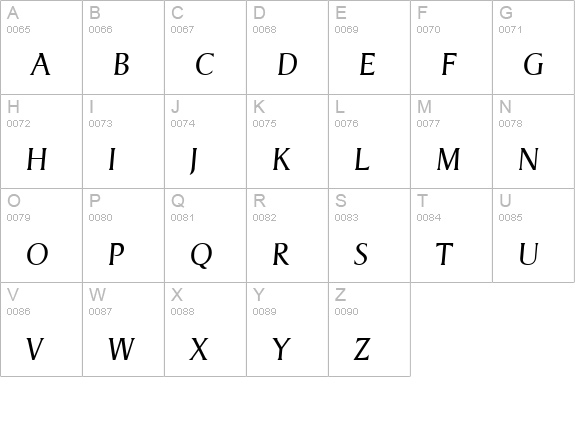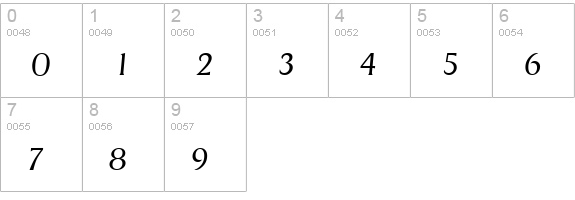
DragonSerial-Xlight-Italic is a distinctive, italic variant in the DragonSerial typeface family \xE2\x80\x94 well suited to design and typography projects.
DragonSerial-Xlight-Italic font is a sleek and elegant typeface that exudes sophistication and modernity. Its slender and italicized design adds a touch of finesse to any project, making it perfect for use in branding, advertising, and editorial design. The unique serifs and subtle curves of this font give it a distinctive and timeless appeal that is sure to catch the eye. Best of all, DragonSerial-Xlight-Italic font is completely free to download at FontsMarket.com. This means you can incorporate this stylish typeface into your designs without any additional cost. Whether you're working on a personal project or a professional assignment, DragonSerial-Xlight-Italic font is a versatile choice that will elevate your work to the next level. Don't miss out on this fantastic opportunity to enhance your design projects with this beautiful and free font. Download it now and let your creativity soar!